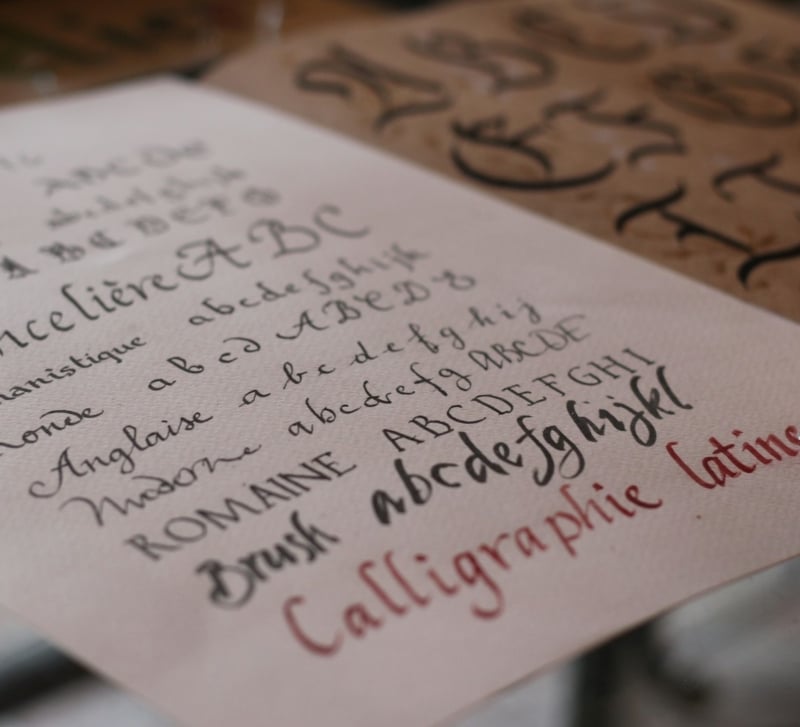
Calligraphy Font Generator: Create Elegant Lettering Instantly Online
A calligraphy font generator is a powerful online tool that transforms ordinary text into stunning, artistic calligraphy lettering within seconds. Whether you need elegant script for wedding invitations, stylish text for social media bios, or decorative lettering for creative projects, a calligraphy font generator delivers professional results with zero design experience required. Therefore, anyone from a student to a seasoned creative professional can produce beautiful calligraphic text instantly and for free.
Furthermore, modern calligraphy font generators work entirely in your browser with no downloads, no sign-ups, and no expensive software needed. You simply type your text, browse the styles, and copy your chosen design directly to your clipboard in one click.
What Is a Calligraphy Font Generator?
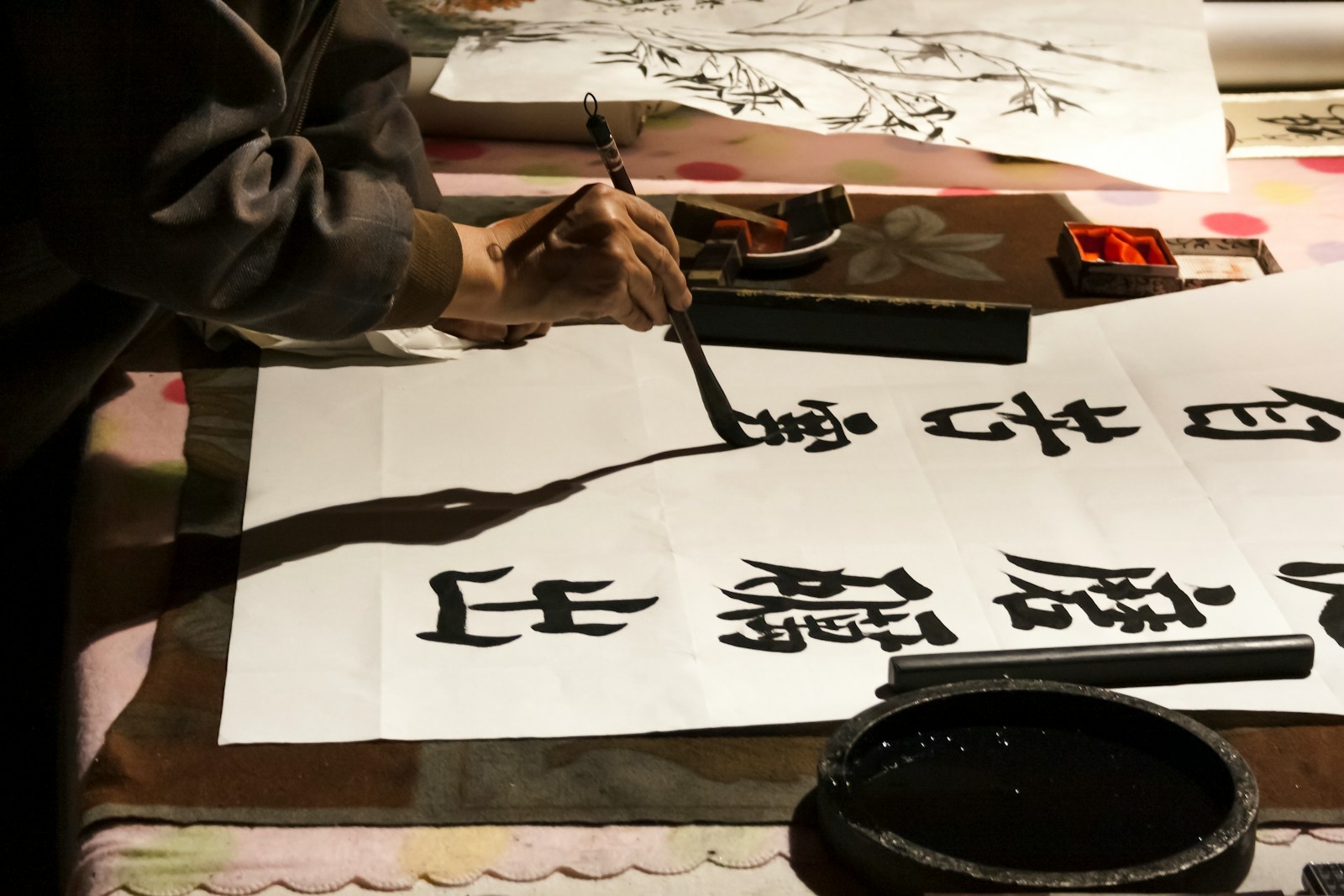
A calligraphy font generator is an online tool that converts plain typed text into calligraphy-style unicode characters that mimic traditional pen-and-ink lettering. Traditional calligraphy is an ancient artistic writing technique that uses flat-edged pens or brushes to create thick and thin strokes depending on the direction of the pen. A digital calligraphy font generator replicates this artistry automatically, delivering results in seconds that would otherwise take years of practice to master by hand.
Because these generated styles use unicode characters rather than image files, the styled calligraphy text remains fully copyable and pasteable. As a result, it displays correctly on every modern platform including Instagram, TikTok, Discord, WhatsApp, Twitter, and even word processors without any compatibility issues.
Popular Calligraphy Font Styles
Calligraphy is a broad art form with many distinct traditions and sub-styles. A good calligraphy font generator covers the full spectrum of these styles so you can find the perfect match for any creative purpose.
>𝓒𝓾𝓻𝓼𝓲𝓿𝓮 𝓢𝓬𝓻𝓲𝓹𝓽: Flowing and connected letterforms that feel elegant and romantic; the most popular calligraphy style for bios, names, and personal quotes
>𝔊𝔬𝔱𝔥𝔦𝔠 / Blackletter: Bold, angular letterforms rooted in medieval manuscript calligraphy; ideal for formal documents, music branding, and dramatic visual identity
>𝒮𝓌𝑒𝑒𝓉 𝒮𝒸𝓇𝒾𝓅𝓉: Light, airy, and delicate script with gentle curves; perfect for wedding stationery, greeting cards, and soft aesthetic content
>𝐵𝓊𝓈𝒽 𝒮𝒸𝓇𝒾𝓅𝓉: Wide, bold strokes that mimic brush calligraphy; suits bold branding, poster design, and modern hand-lettering aesthetics
>Italic Calligraphy: Slightly slanted, disciplined letterforms inspired by Renaissance humanist scripts; widely used in professional certificates and formal documents
>Modern Calligraphy: A contemporary, free-form interpretation that breaks classical rules in favor of expressive, casual elegance; hugely popular in social media and lifestyle branding
>Arabic-inspired calligraphy: Flowing, ornate letterforms inspired by classical Arabic penmanship traditions; used for decorative art, cultural projects, and multicultural branding
How to Use a Calligraphy Font Generator
Using a calligraphy font generator is straightforward and takes under a minute from start to finish. The process works identically on desktop computers, tablets, and mobile phones.
>Browse the styles: Your text instantly appears across 25 or more calligraphy style variations simultaneously as you type
>Choose your favorite: Scroll through cursive, gothic, brush script, sweet script, and other calligraphy options to find your ideal match
>Copy with one click: Click your preferred calligraphy style and it copies automatically to your clipboard
>Paste anywhere: Drop the styled text into any social media bio, caption, message, document, or digital design tool instantly
For a fast, reliable, and versatile experience, try the calligraphy font generator at FontsArena, where you can preview multiple elegant styles side by side and copy your choice instantly with no account required.
Calligraphy Font Generator for Social Media
Social media platforms like Instagram, TikTok, Twitter, and Facebook do not allow users to change the native font in bios, captions, or posts. However, calligraphy font generators bypass this limitation entirely by producing unicode characters that every platform already supports natively. Therefore, your beautifully styled calligraphy bio or caption displays perfectly for every viewer worldwide regardless of their device or operating system.
Instagram profiles that use cursive calligraphy text in their bios stand out immediately in a sea of plain-text profiles. Furthermore, a consistent calligraphy font style used across your bio, pinned post captions, and story highlights creates a refined, editorial aesthetic that communicates professionalism and creative intentionality to every new visitor.
Why a Calligraphy Font Generator Is Worth Using
Calligraphy has been valued for thousands of years as a mark of beauty, precision, and cultural sophistication. A calligraphy font generator democratizes access to that artistry by making it available to everyone instantly and for free. Therefore, whether you are crafting a personal social media bio, designing event materials, building a brand identity, or simply adding elegance to a message, a calligraphy font generator gives you a professional result in seconds that once required years of dedicated practice to achieve by hand.